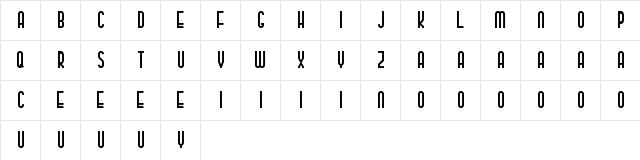
Classy Beautiful 2 Regular
| Foundry | Nirmana Visual |
| Designer | Sigit Dwipa |
Design Context for Classy Beautiful 2 Typeface
Classy Beautiful 2 offers clean, dependable letterforms without strong stylistic allegiance, making it a practical choice for designers who need flexibility.
Pro Tip: Use Classy Beautiful 2 in both headline and body roles to test its range before committing to a single application.